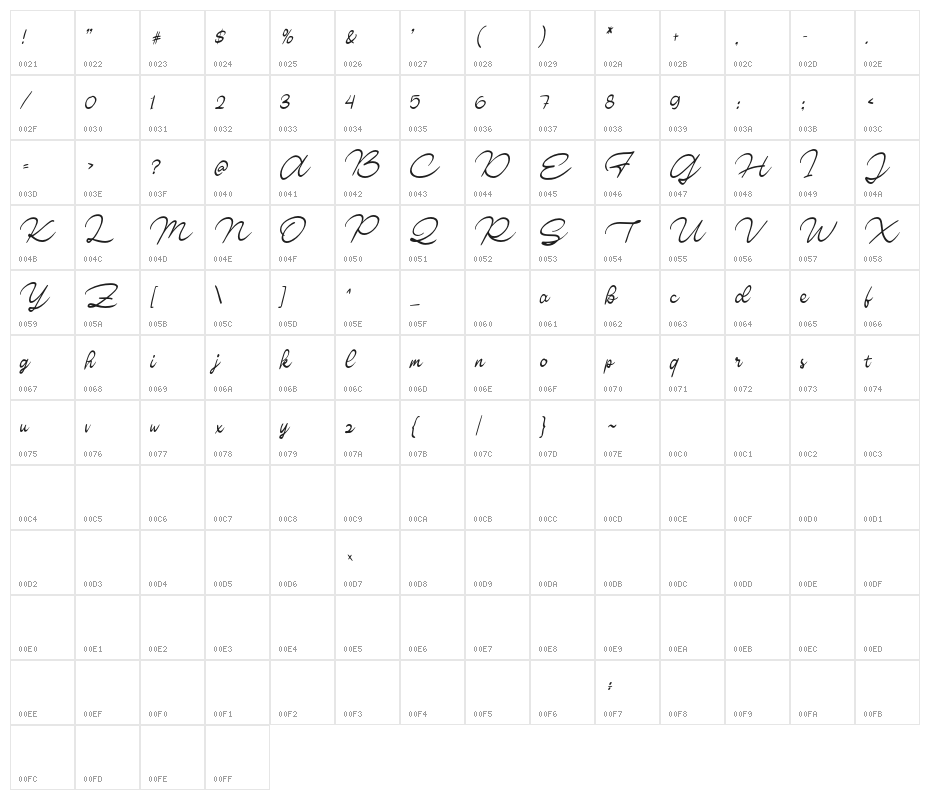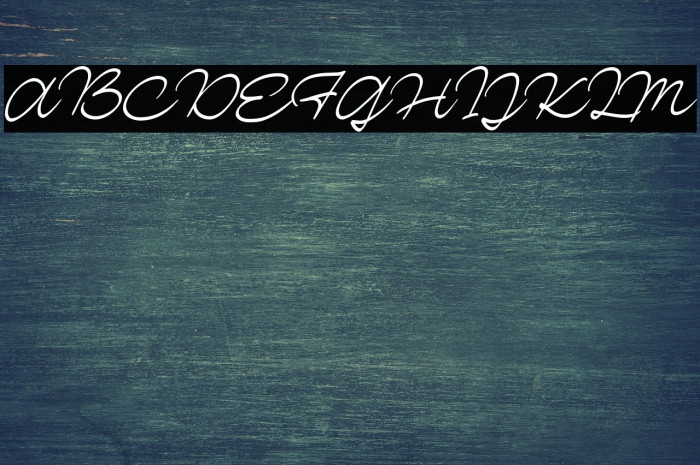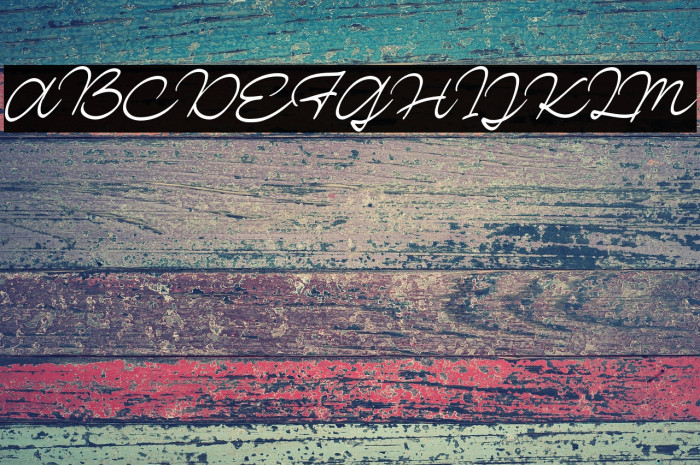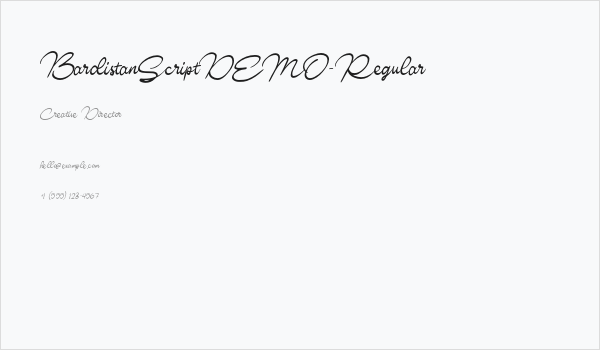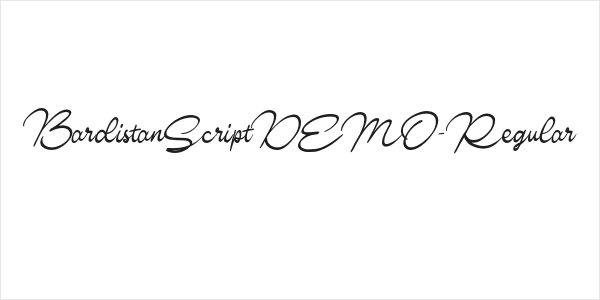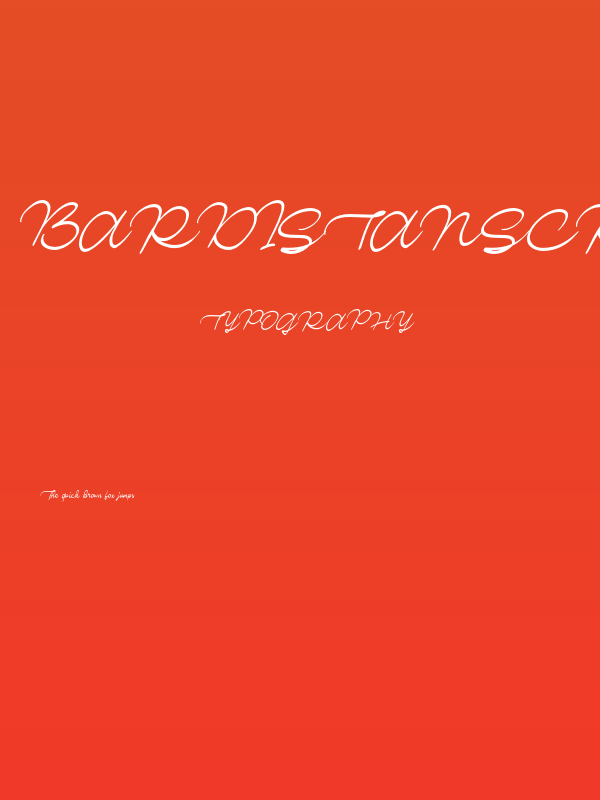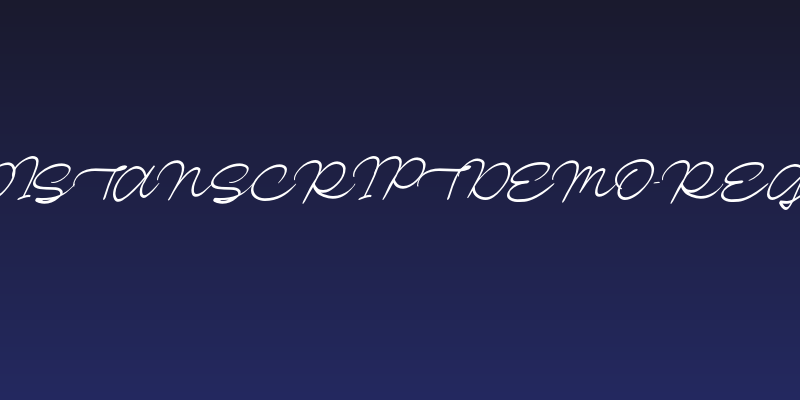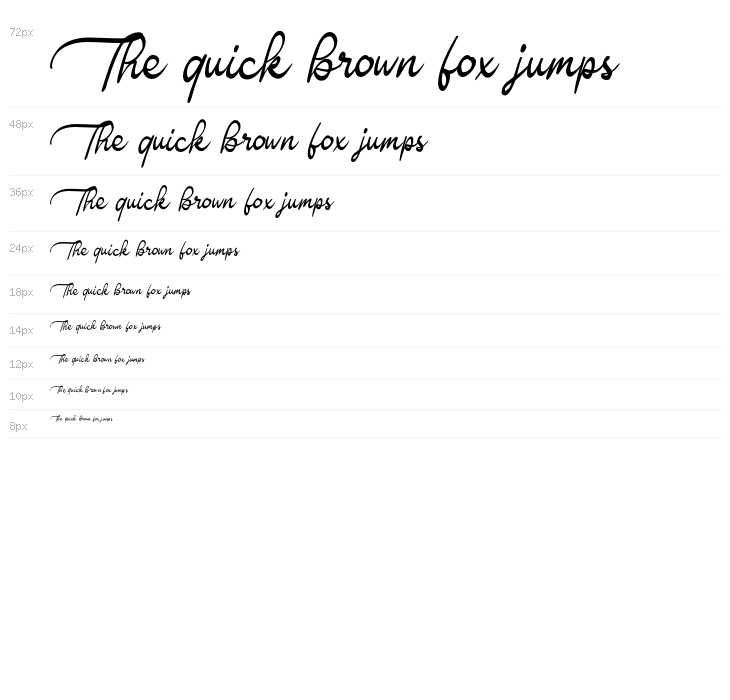
BardistanScriptDEMO-Regular Font
BardistanScriptDEMO-Regular Description
This elegant script font features fluid, connected strokes that mimic the natural flow of handwriting. The uppercase letters are gracefully elongated, adding a touch of sophistication, while the lowercase letters maintain a consistent rhythm that enhances readability. The numerals and special characters are designed to complement the overall style, ensuring a cohesive look across all text elements. The font's smooth curves and delicate lines make it ideal for projects that require a personal or artistic touch.
Overall StyleElegant, Artistic
Use CaseLogos, Invitations, Personal Branding
Proposed ProjectsIdeal for wedding invitations, greeting cards, personal branding, and artistic projects.